Brand new modern & futuristic style typography bundle with 10 multilingual display fonts in 6 sets! All these fonts are trendy, clean, sharp & elegant so you can use it for any kind of modern or futuristic style branding projects or print designs 😉
Modern & Futuristic Display Fonts from Ryan Creative contains 6 modern, elegant & clean display font sets for your new projects! Don’t miss this creative & futuristic style font & branding bundle 😉
- 6 geometric & futuristic display font sets with 10 modern fonts for your new projects!
- Great for modern branding projects, headers, posters or any print designs…
- Multilingual support, stylistic alternates & ligatures
6 geometric & futuristic display font sets with 10 modern fonts for your new projects!
01. Canger staong – Display font from Ryan Creative
Introducing the Canger staong font which has a unique looking design. This font has curved joints like pipes. You can use Canger staong in modern and contemporary designs, and are suitable for use in various media such as stickers, posters, covers, typography and other digital media.
- Uppercase.
- Alternates & Ligatures
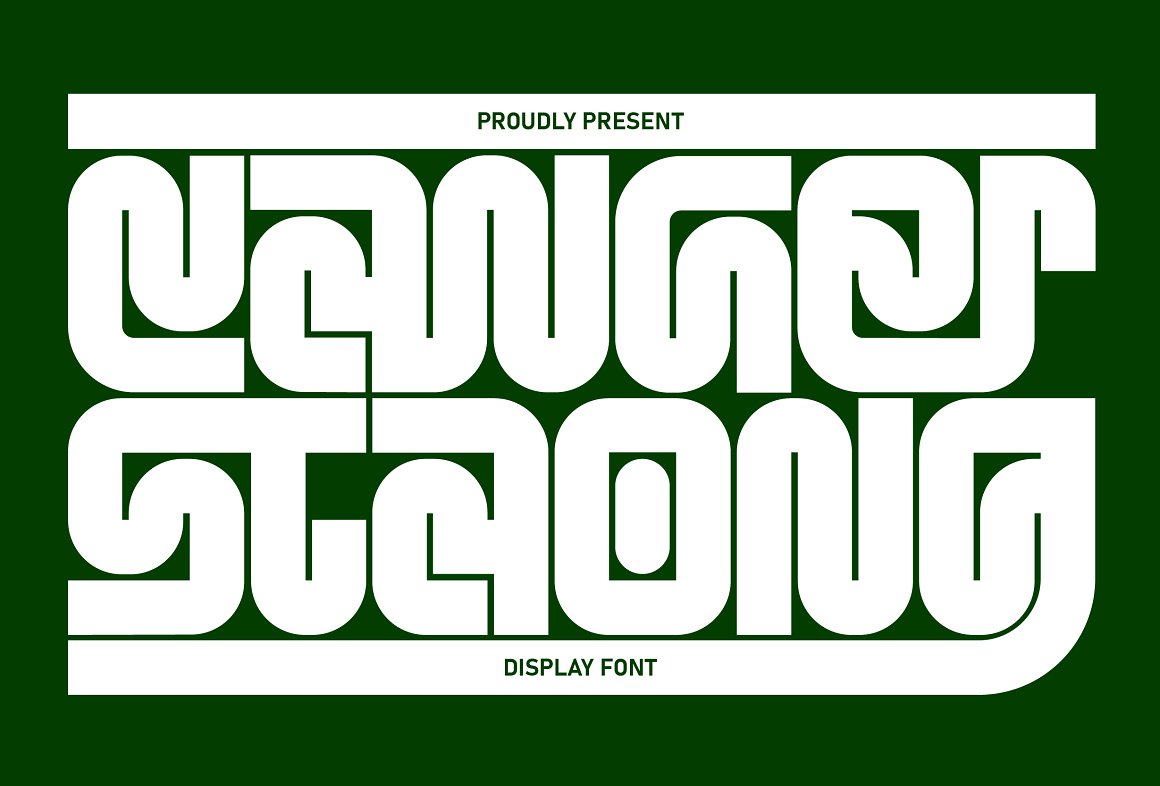
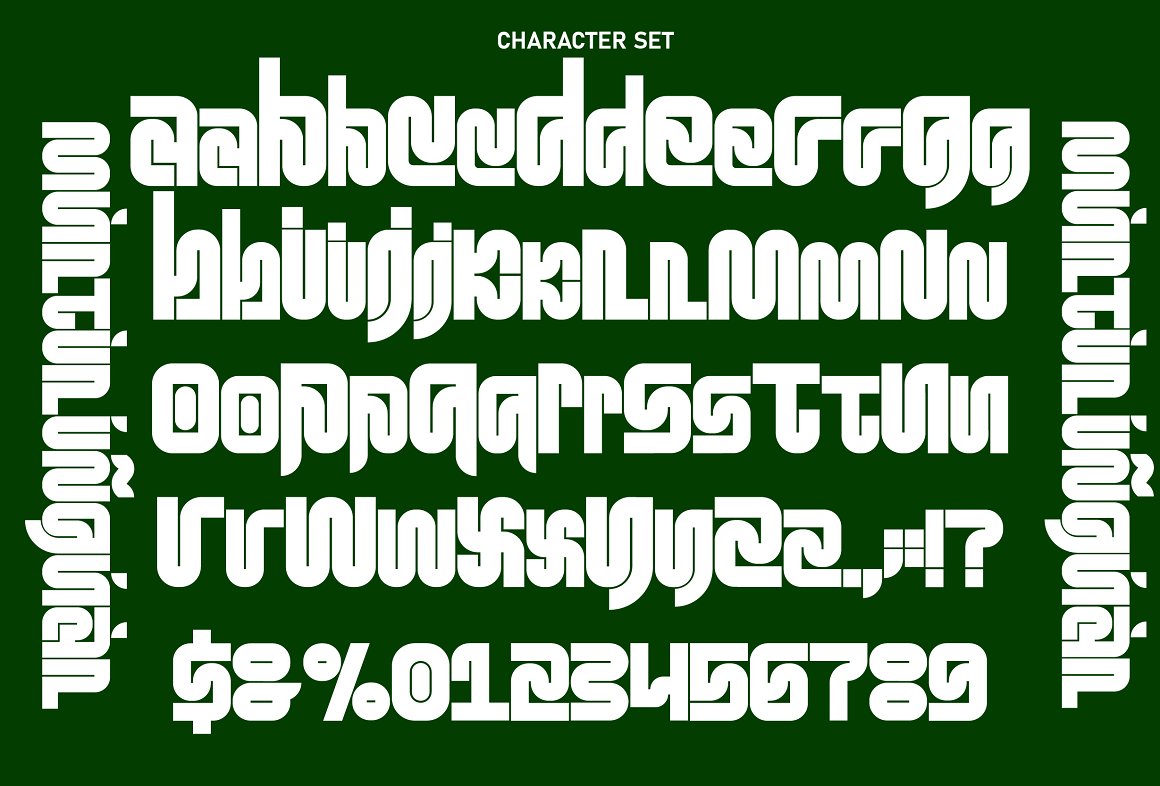
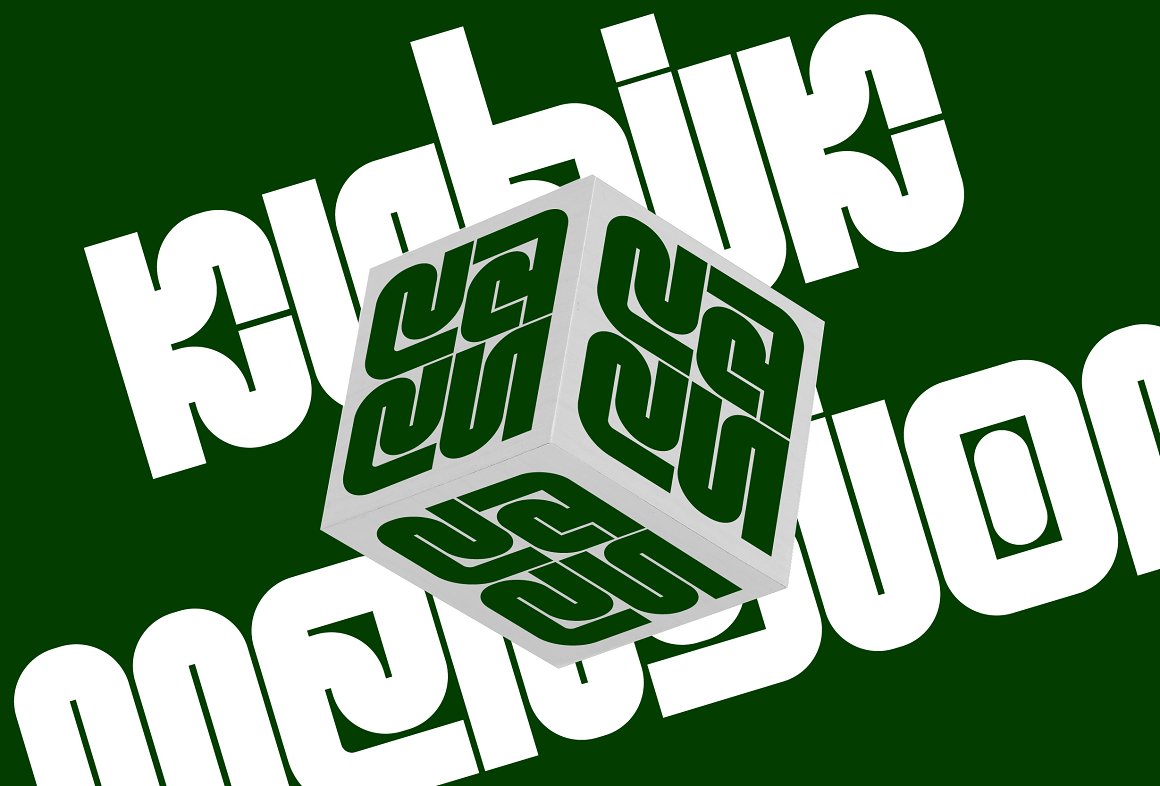
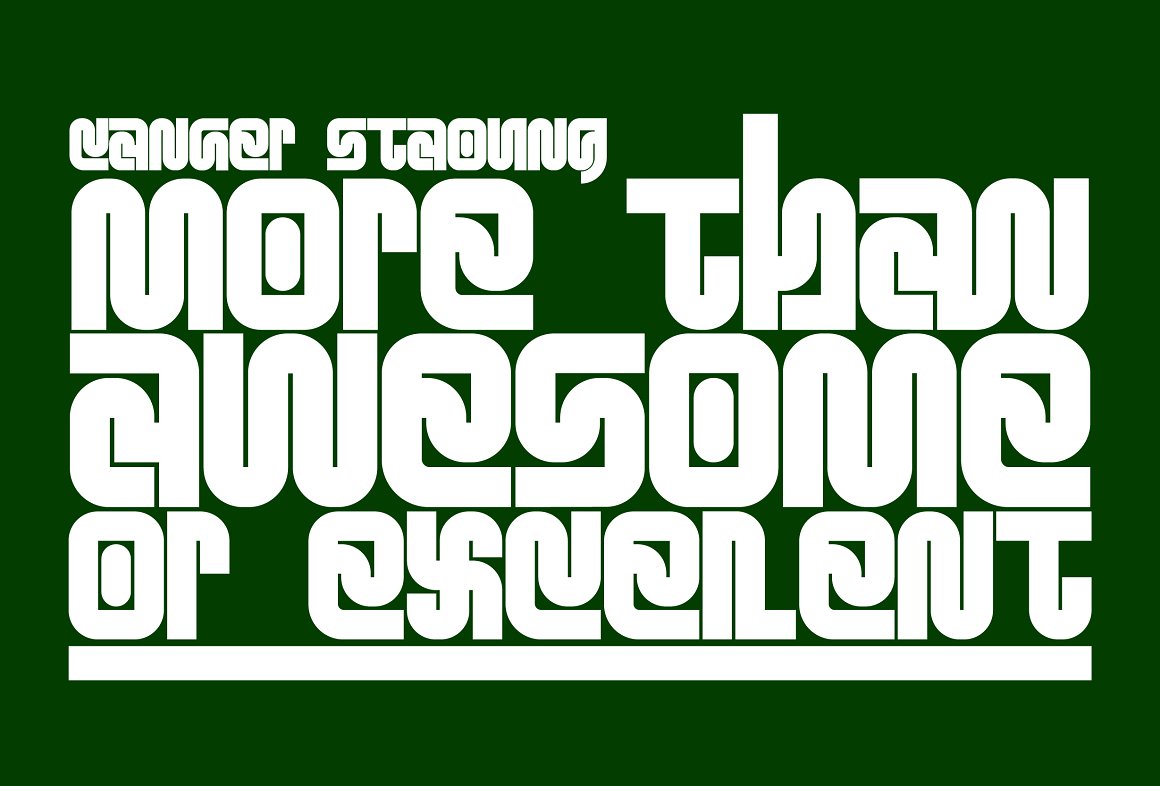
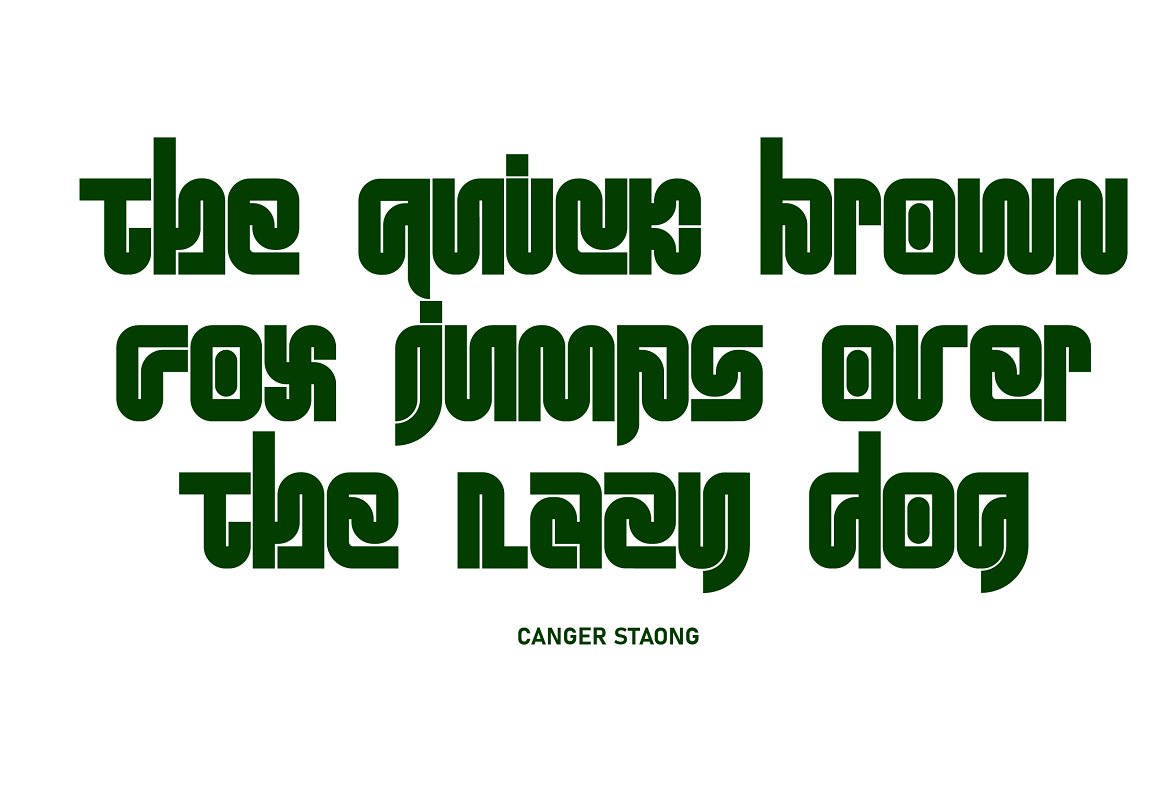
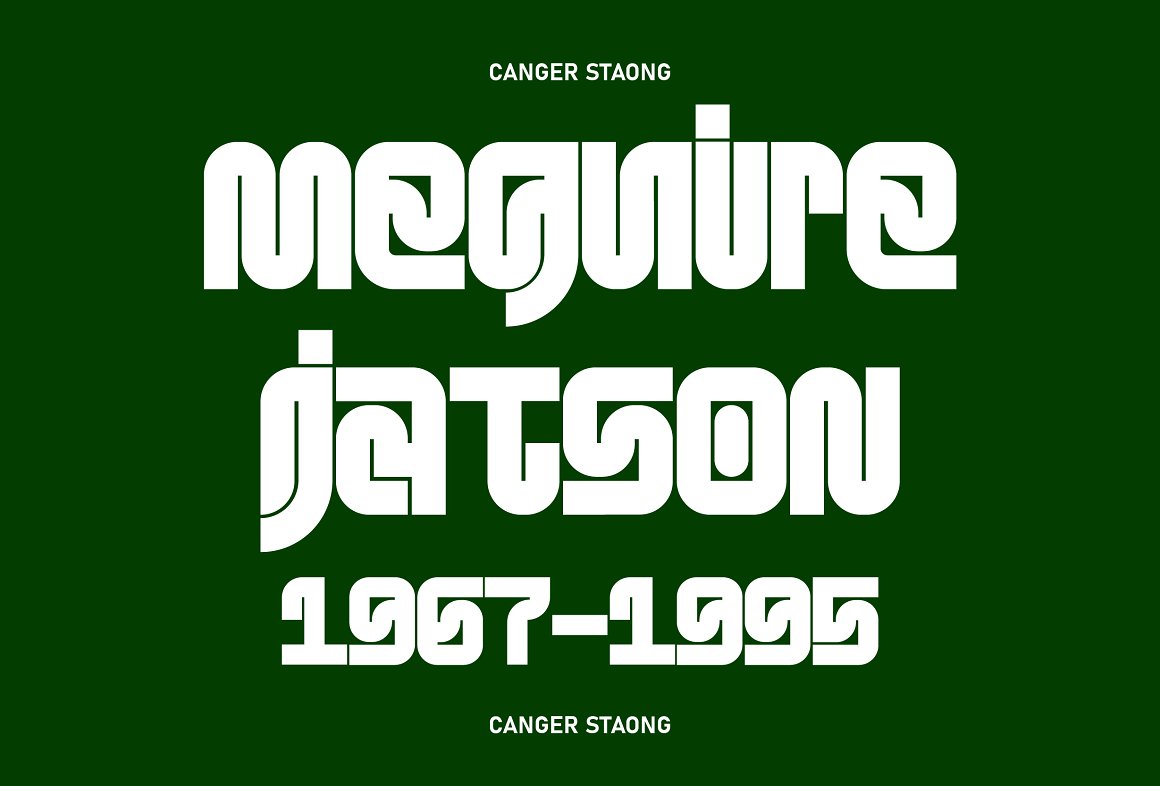
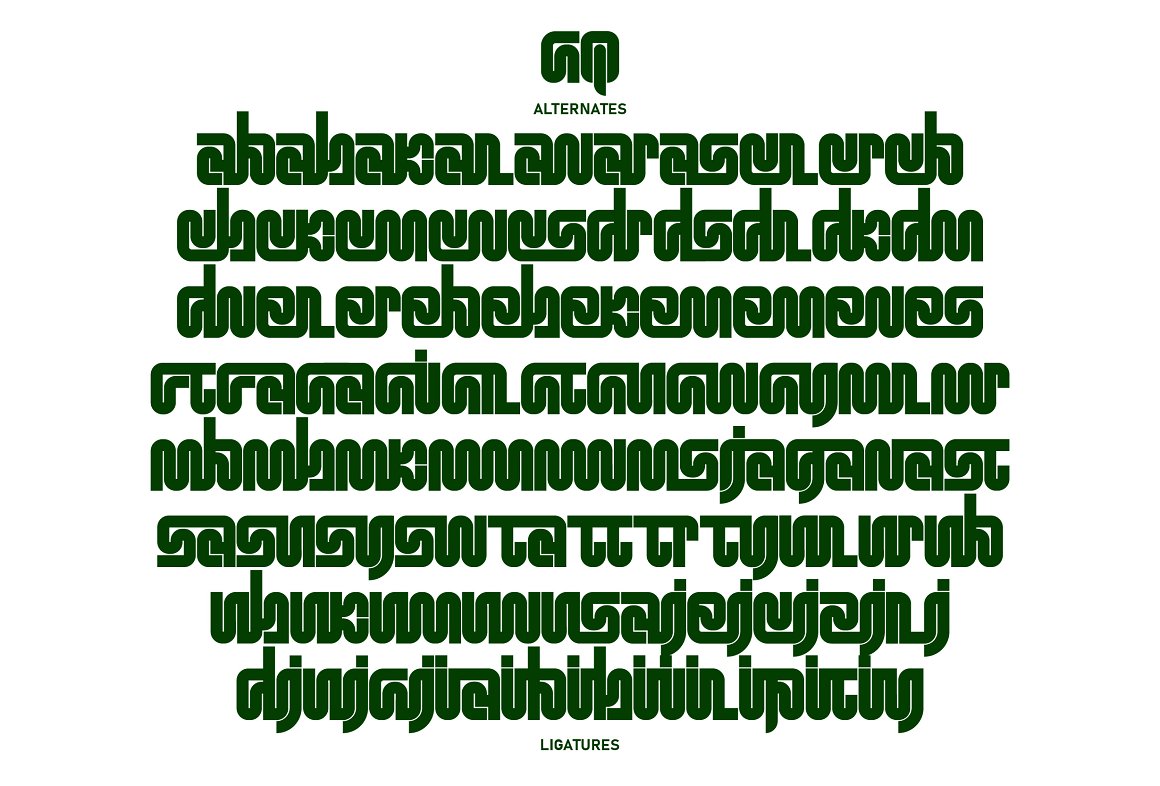
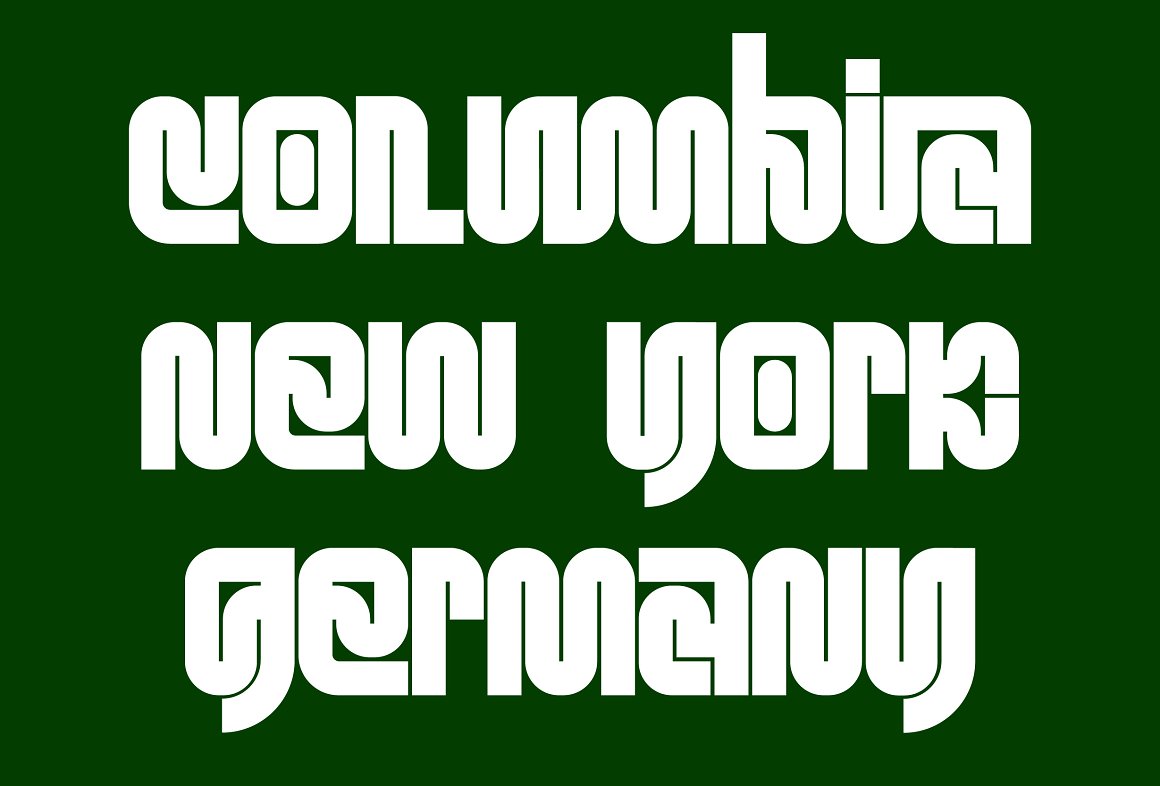
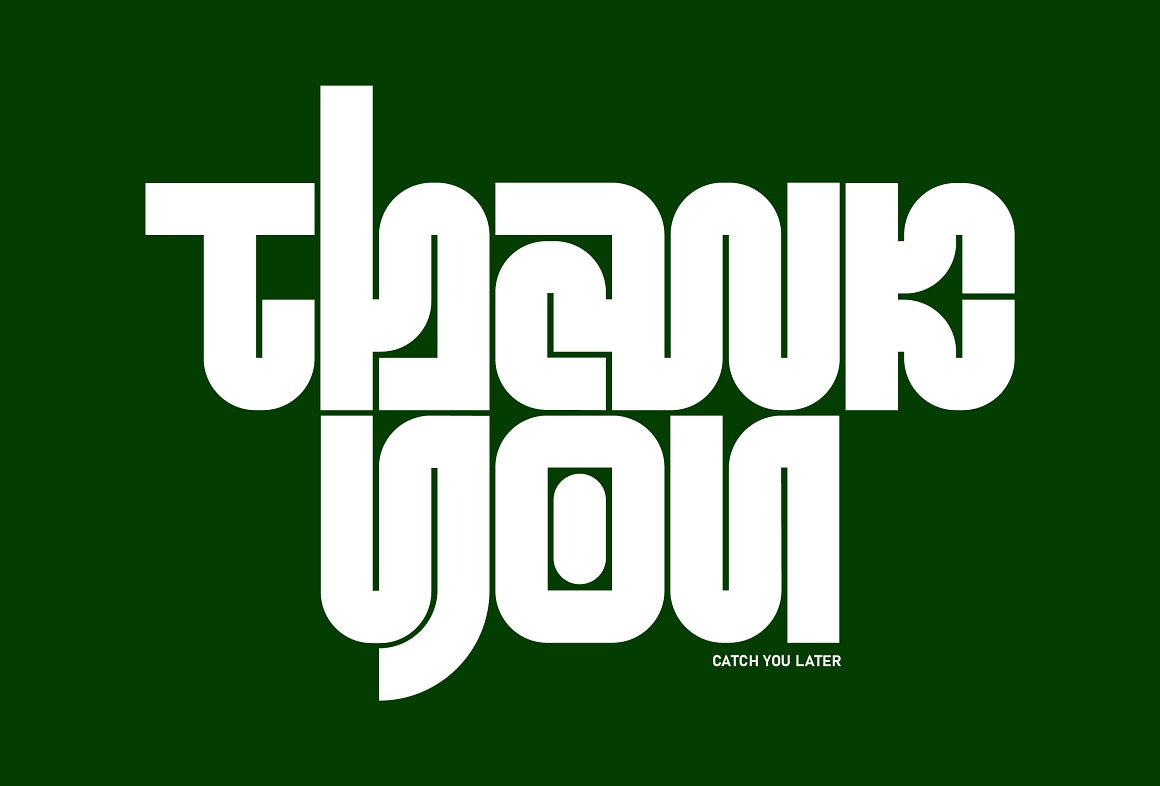
02. Marghote – Grotesk sans type from Ryan Creative
Marghote which has a simple design and grotesk style. This font is bold and condensed, making it look more minimalist and easy to read. Marghote can be used in modern and contemporary designs, and is suitable for use in various fashion media, posters, magazines, typography and other digital media.
- Uppercase
- Regular.
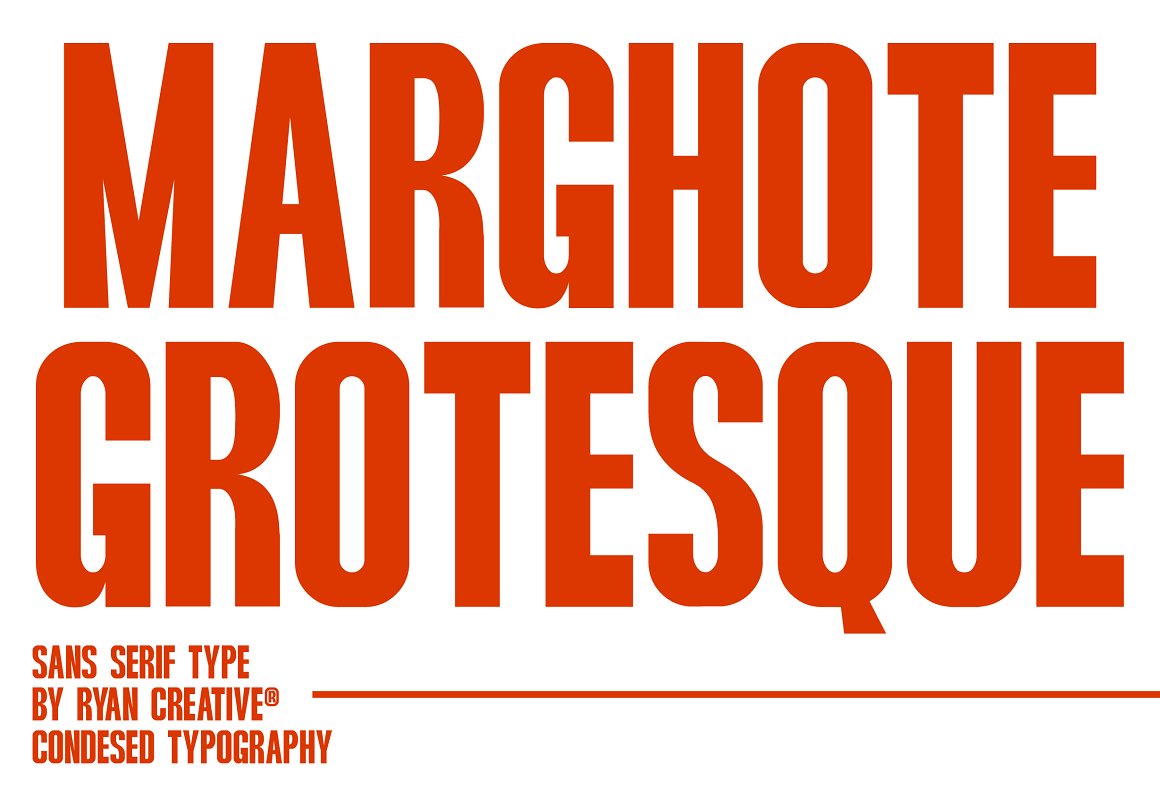
03. Betronix – Futuristic font from Ryan Creative
Betronix is ​​a tech typeface designed by Ryan creative that embodies a strong and modern vision approach, formal rigor, and shows a variety of designed characters including glyphs as well as depicting graphics in a modern, powerfully constructive anatomical way.
- Uppercase, Lowercase
- Regular & Outline
04. Hispanic – modern serif font from Ryan Creative
Introducing Hispanic fonts that have strong looking designs. In this font there is an additional taper at each end of the letter so that it seems more concentrated. Hispanic has more than 120 Ligatures that you can use in both modern and contemporary designs, and are suitable for use in a variety of fashion media, posters, model magazines, typography, promotions and other digital media.
- Uppercase and lowercase letters.
- Alternative, Ligatures
- Regular & Italic.